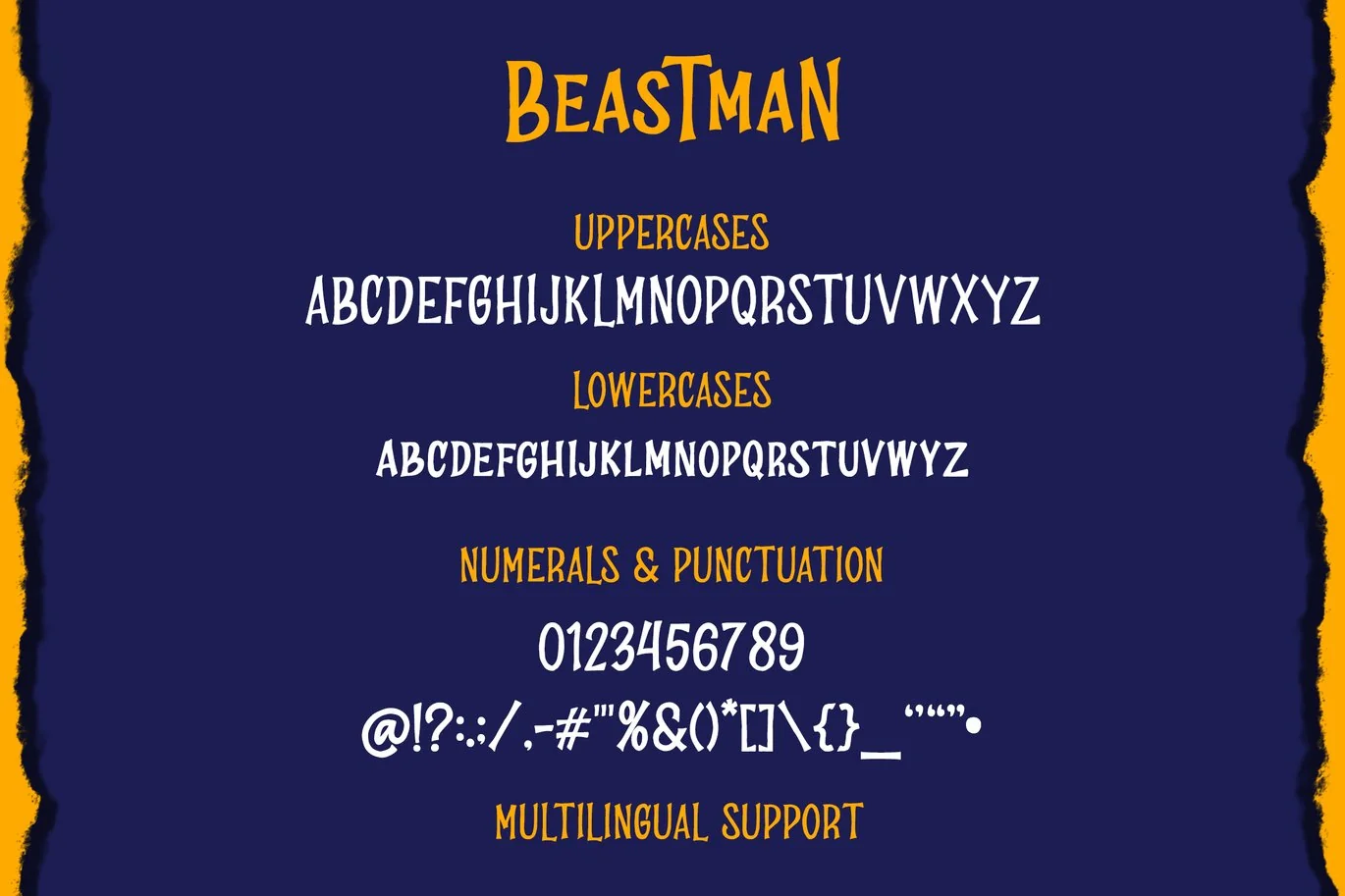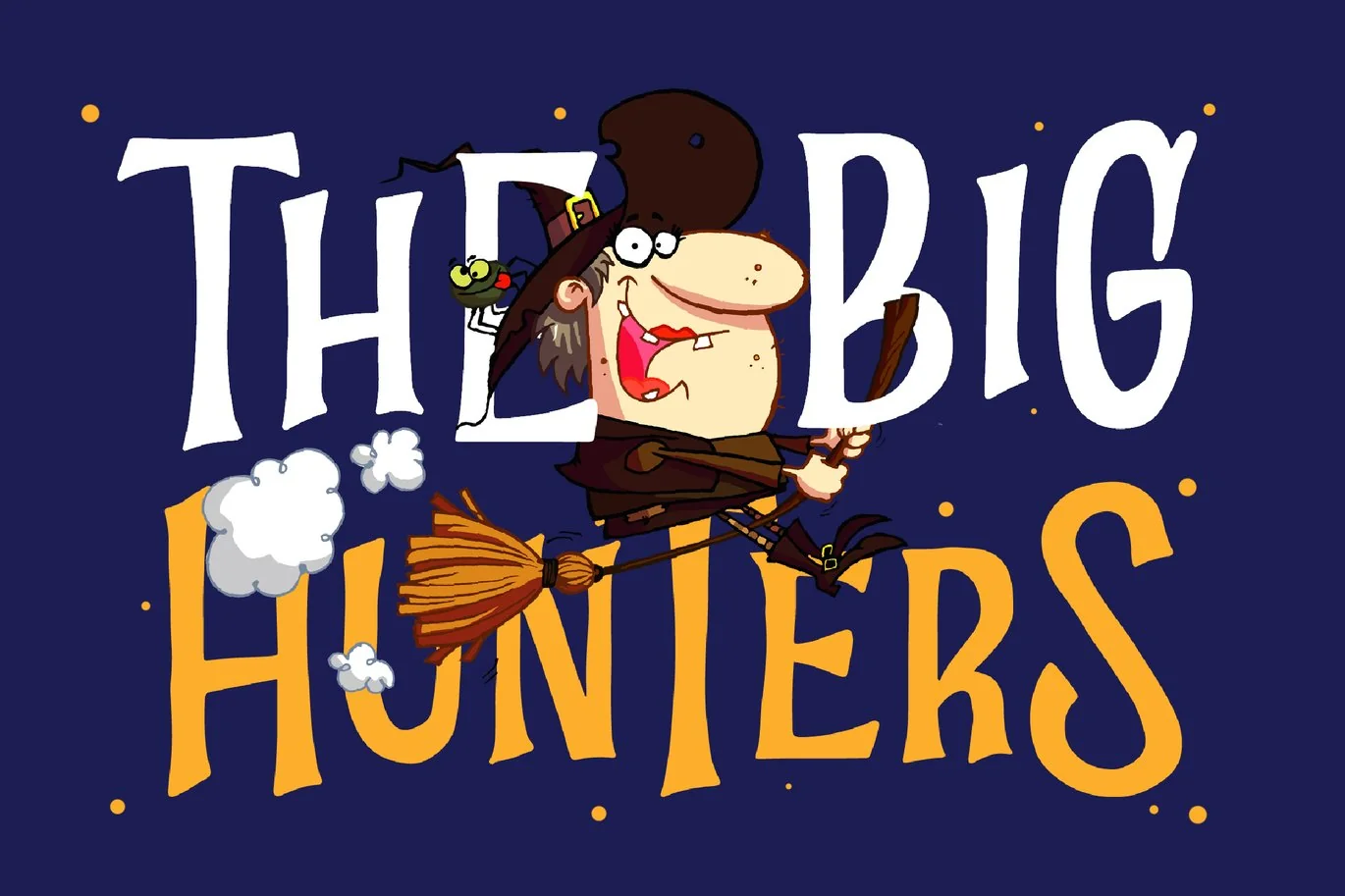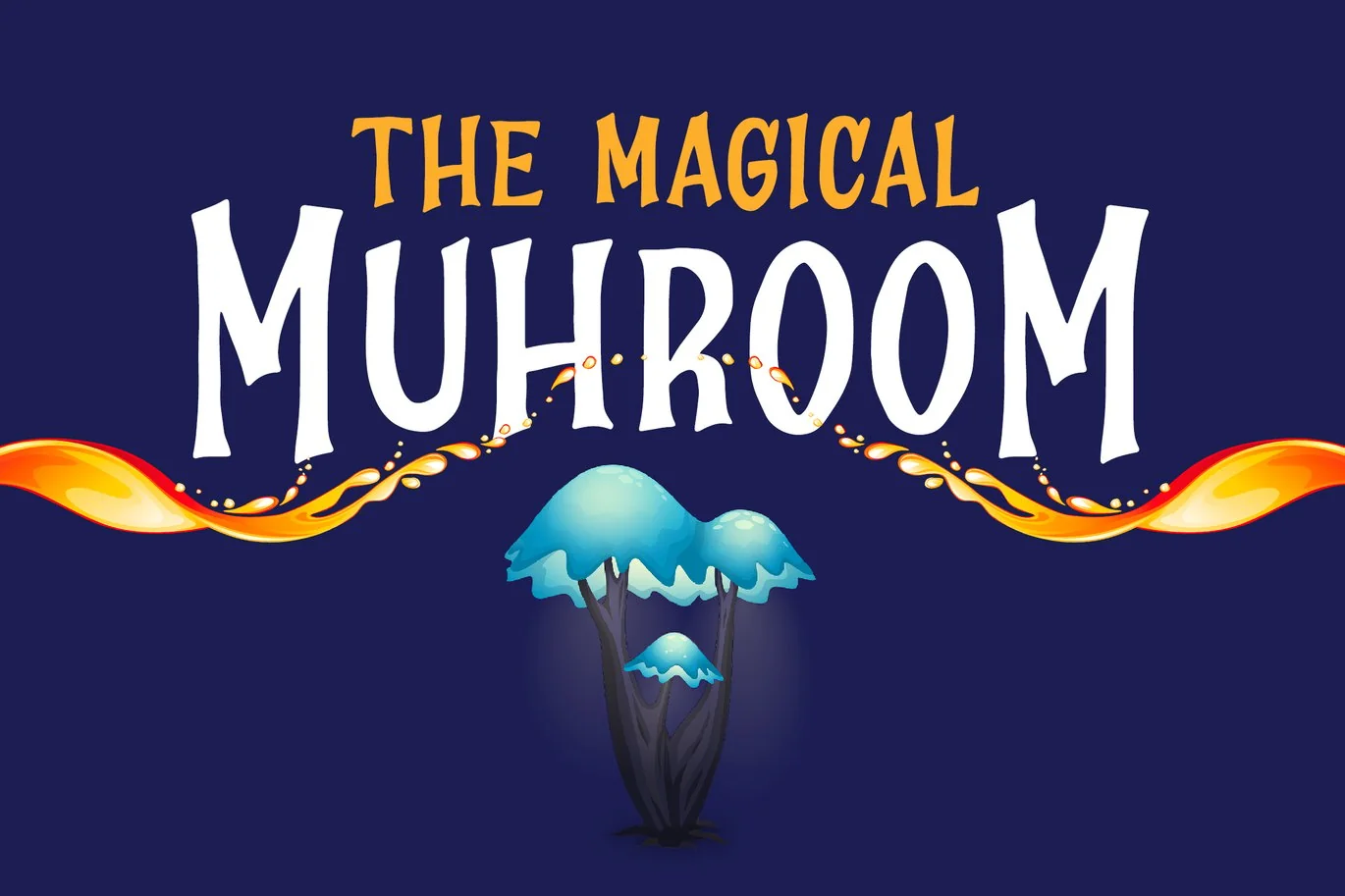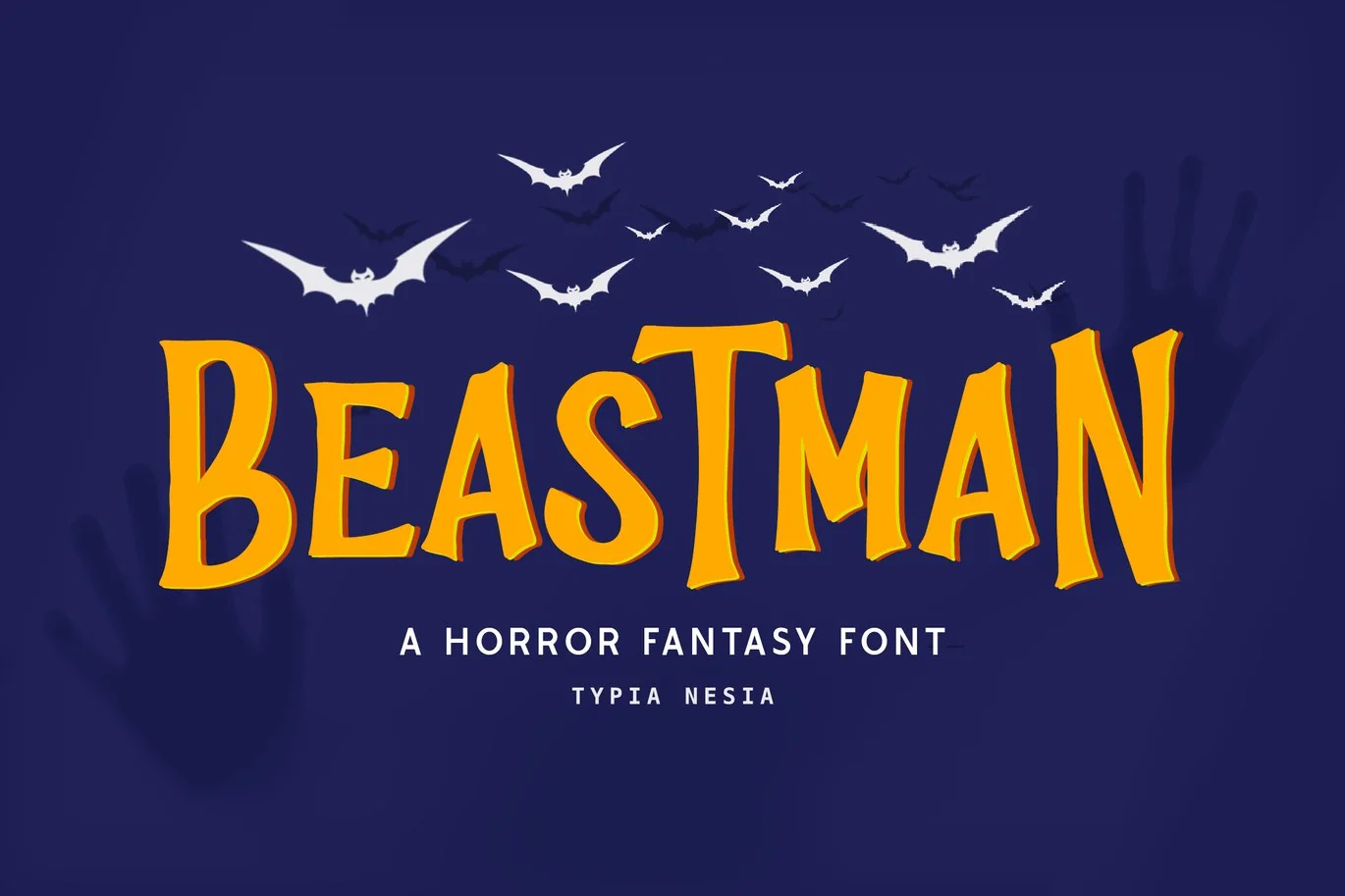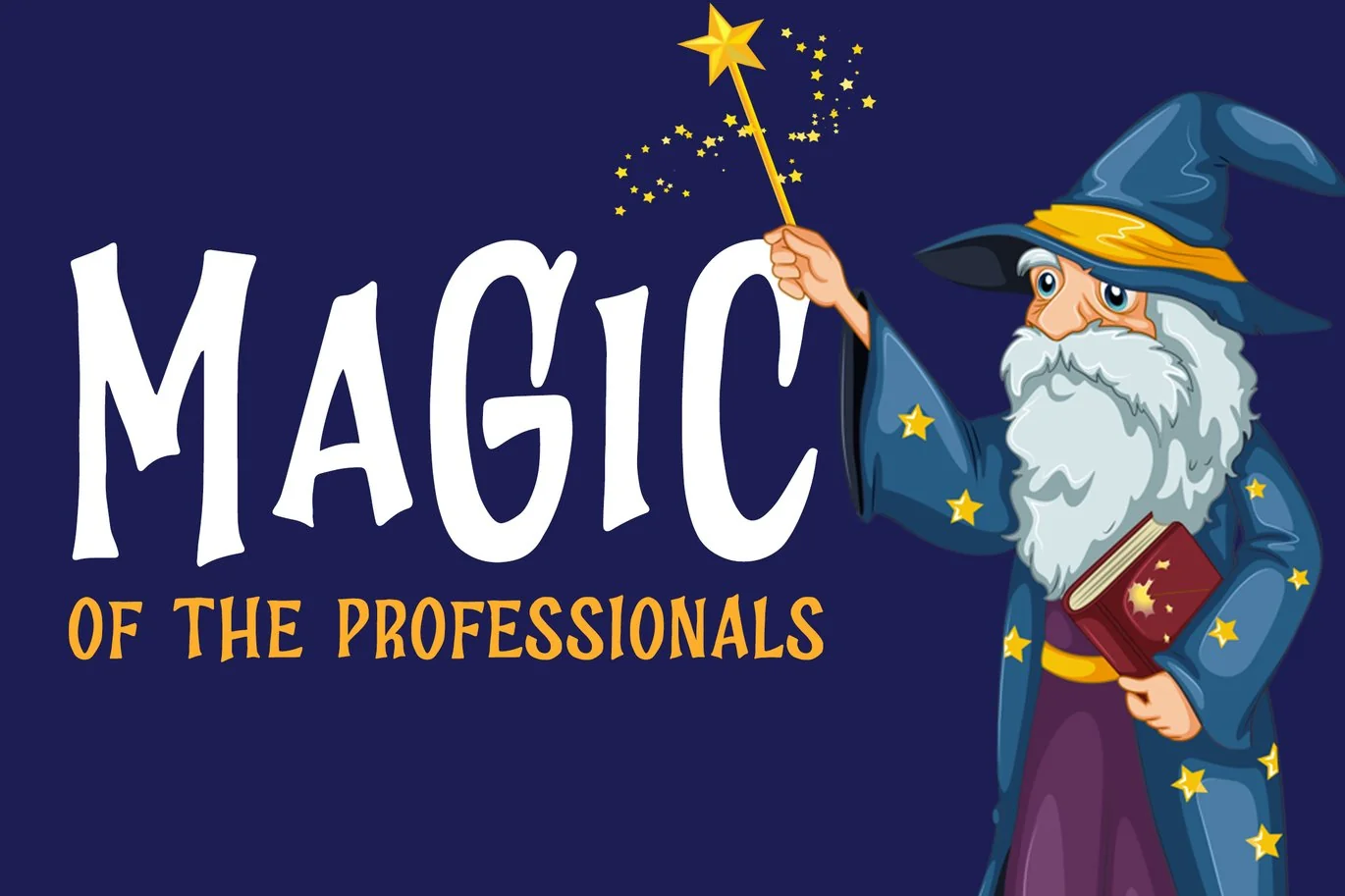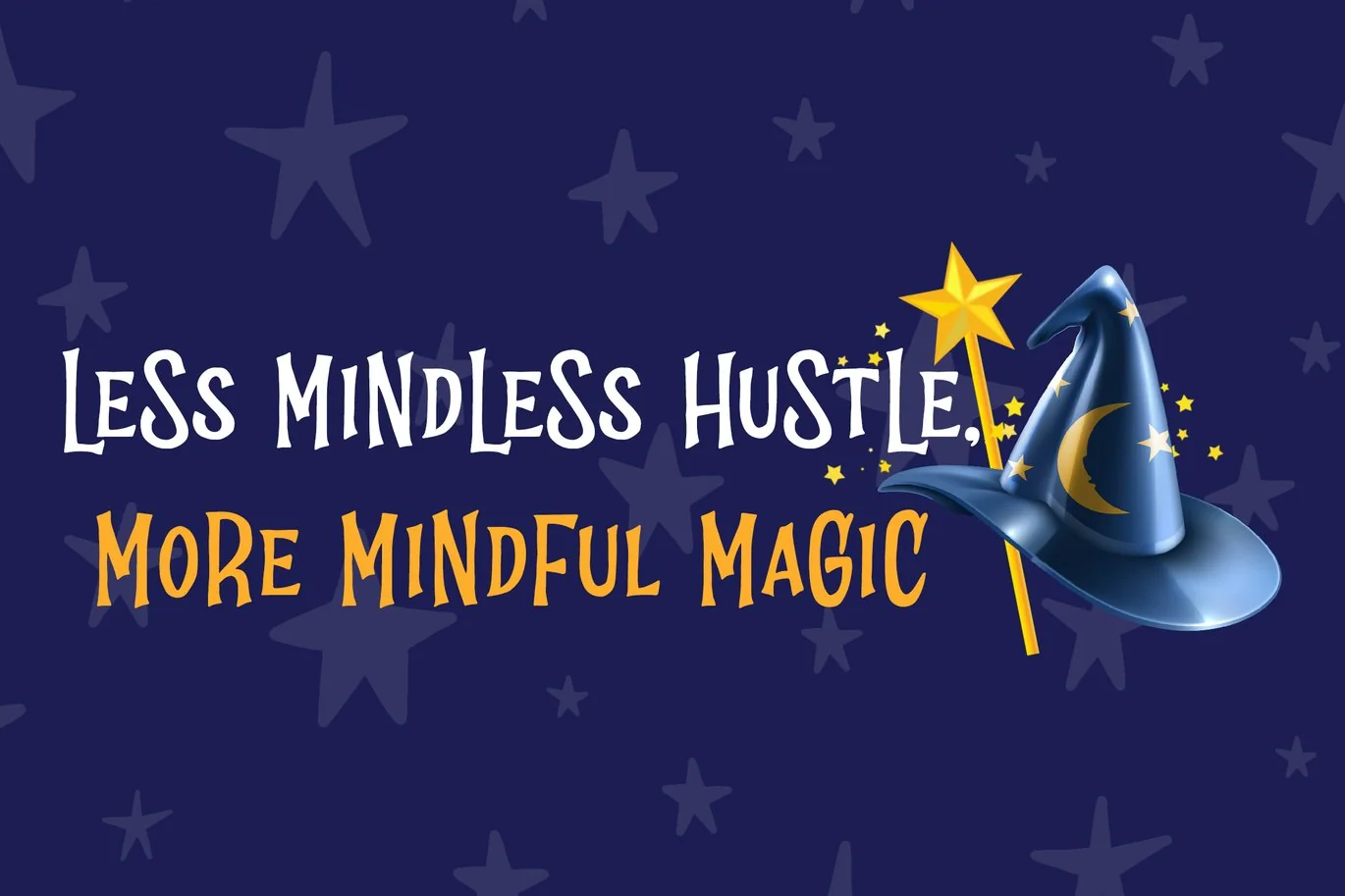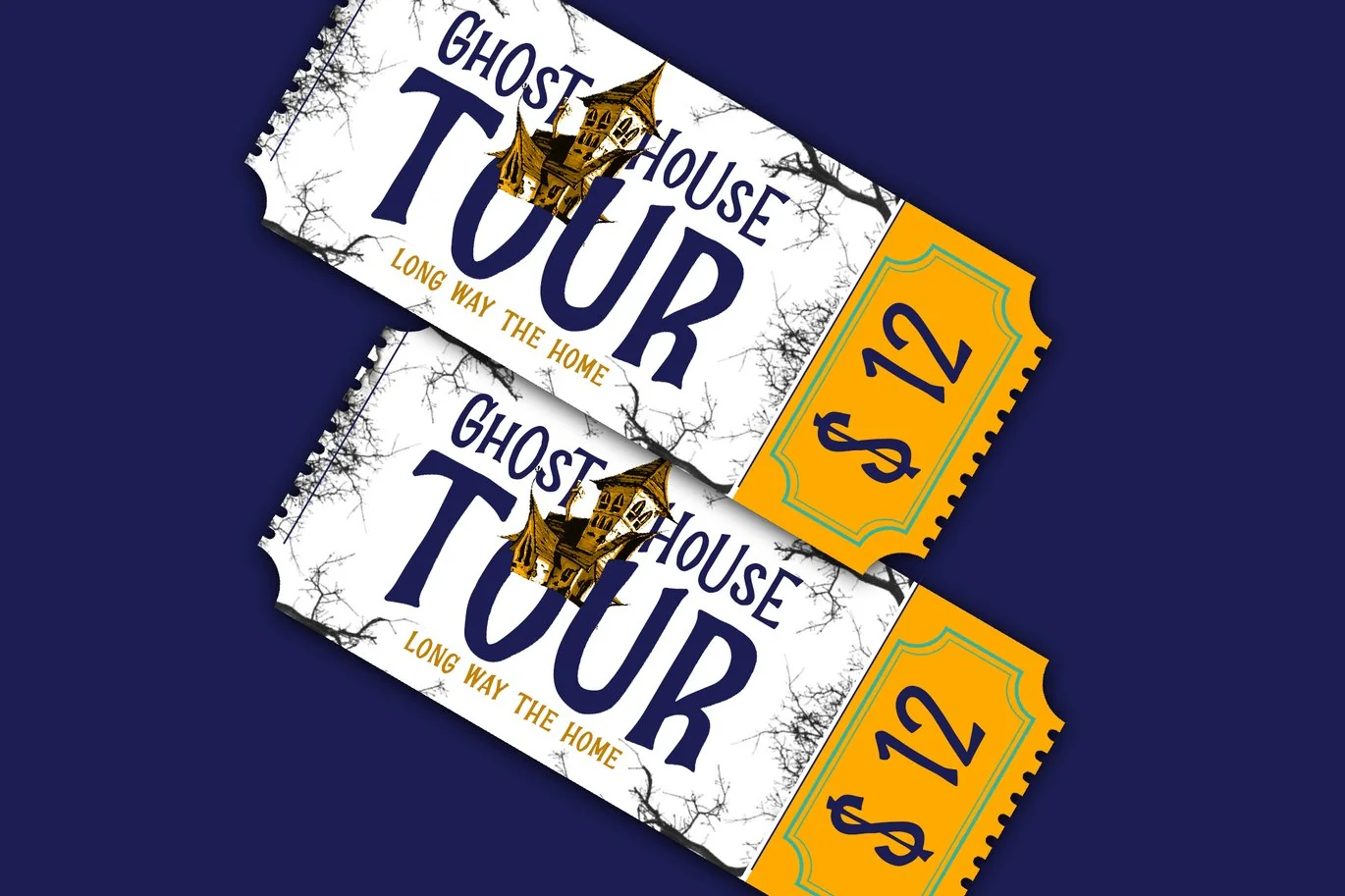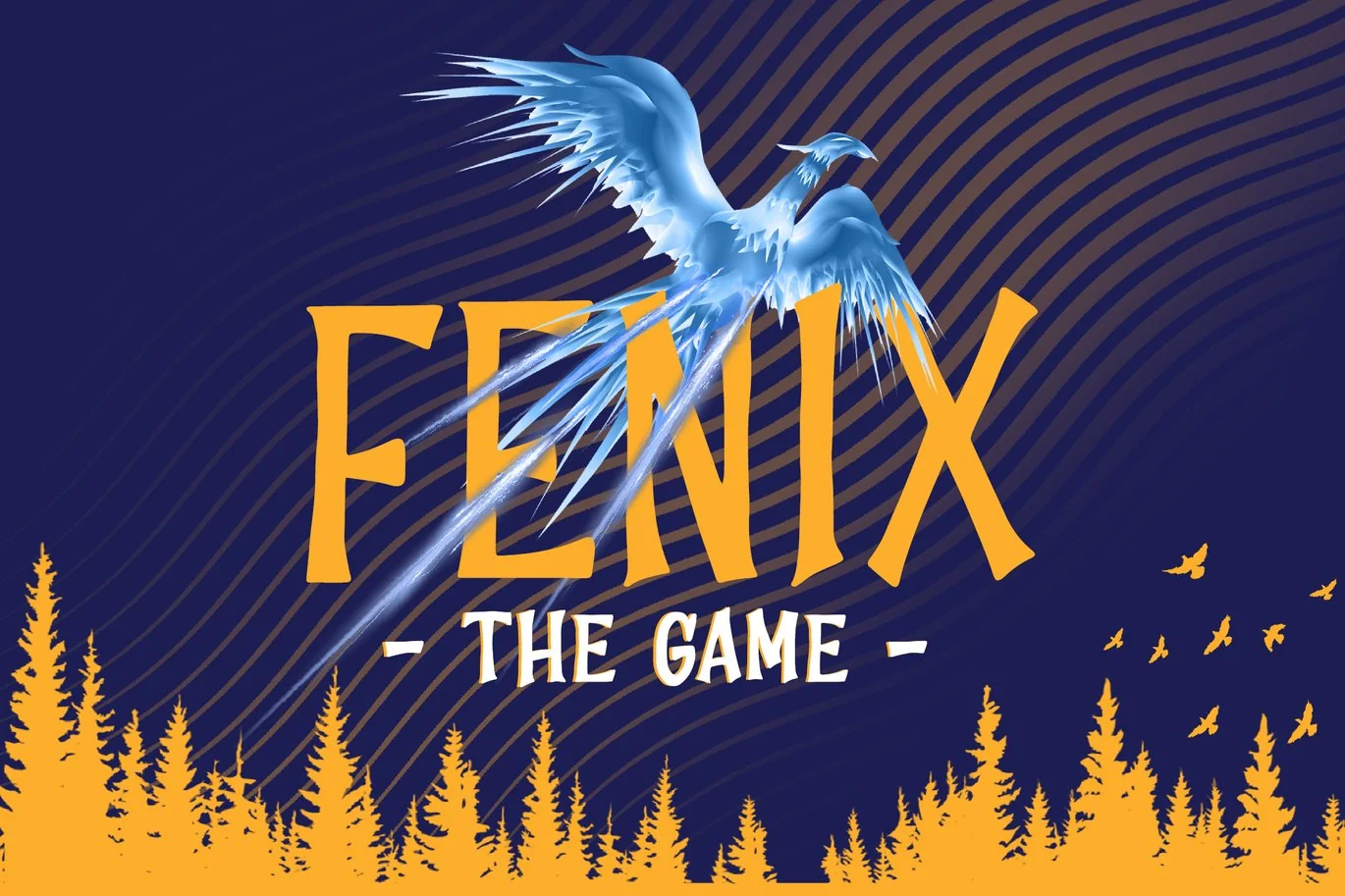
Beastman – Fantasy Horror Font
Suitable for any design needs : logo, branding, modern advertising design, cartoon, animation, kid book, logos, poster quote, book / cover Title, editorial design, website / blog, card, custom mug, pillow, t-shirts, and any hand-lettered needs.